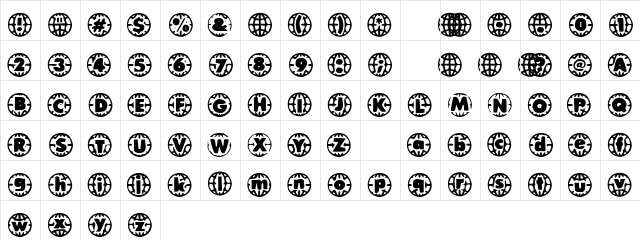
Vintage Vacation Regular
Design Context for Vintage Vacation Typeface
Vintage Vacation has the warm character of retro typography — evoking diners, record sleeves, and the golden age of print advertising.
Font Pairing: Combine Vintage Vacation with a simple slab or neutral sans — period-accurate companions reinforce the vintage feel without competing for attention.
Pro Tip: Lean into Vintage Vacation's period character by pairing it with aged paper textures, muted colour palettes, and vintage illustration styles.